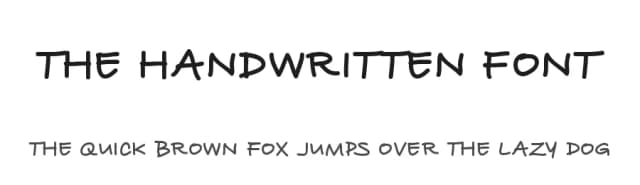
About Primahandwrite Font
Primahandwrite is a script & handwritten font designed by Voltage. It includes 218 glyphs, a regular weight, TTF (TrueType) format, and 178 languages. Primahandwrite is free to download; check the license details on this page before commercial use. Script & handwritten fonts like Primahandwrite work best for wedding invitations, greeting cards, signatures, and elegant branding.
Primahandwrite Font is a script font that shines as a display or heading face. Pair it with a clean sans-serif or serif font for body text β the contrast creates a clear hierarchy while the two styles stay balanced and easy to read.
Primahandwrite Font
by Voltage
Primahandwrite Font is a script handwritten typeface by Voltage, ideal for logos, invitations, branding, and creative projects.